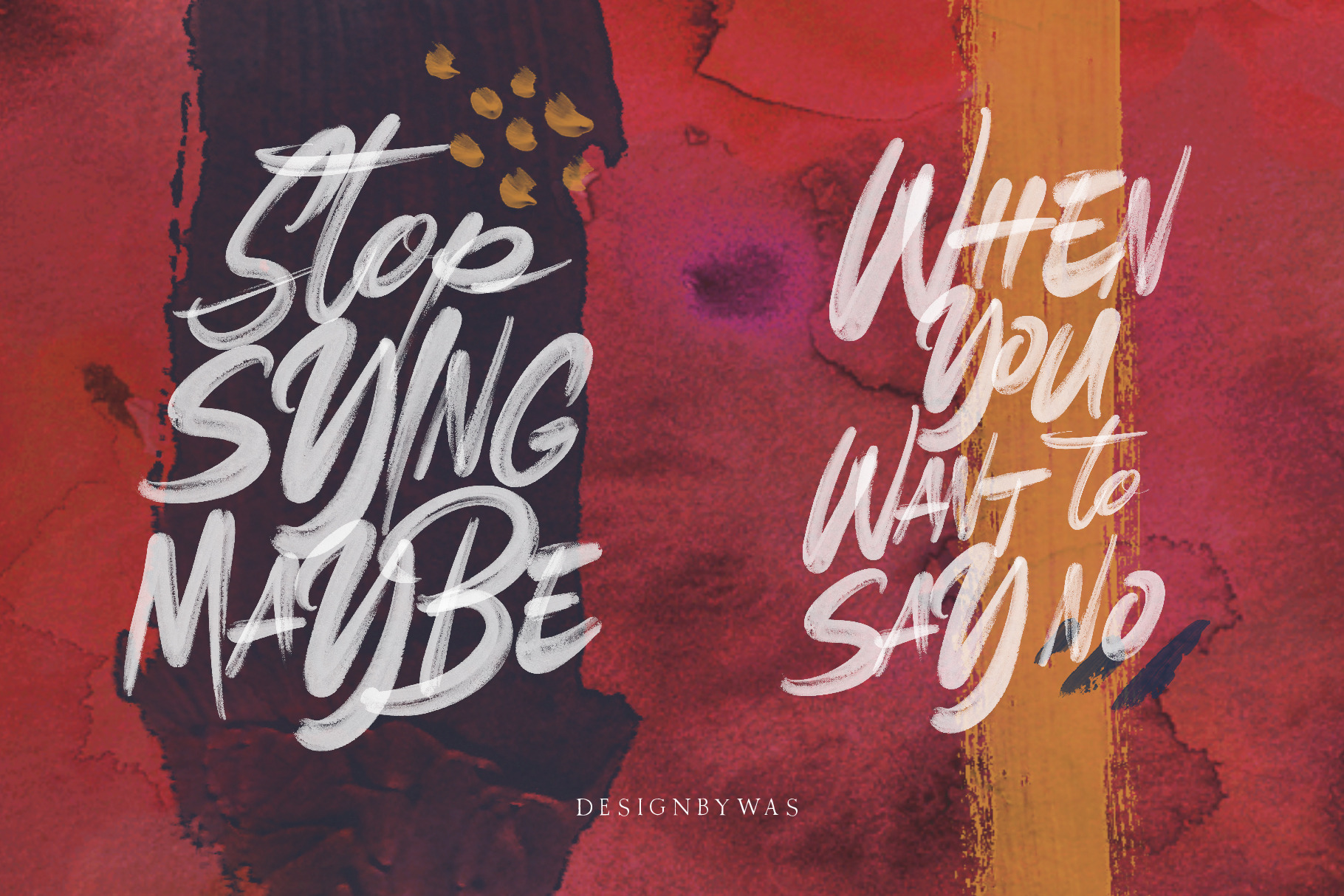
Astude & Dude SVG Font & Solid
Astude & Dude SVG is my latest handpainted brush font, , by using high resolution brush stroke images with incredible definition, instead of the traditional vector format.font to the next level with a hyper realistic font that truly looks, crude typeface uses brand new technology that makes way for more authentic looking fonts and is sure to grab the attention of customers and designers a like.
Astude & Dude SVG Suitable for digital lettering, prints, logo, poster, t-shirt, graffiti, packaging and applicable for some type of graphic design.